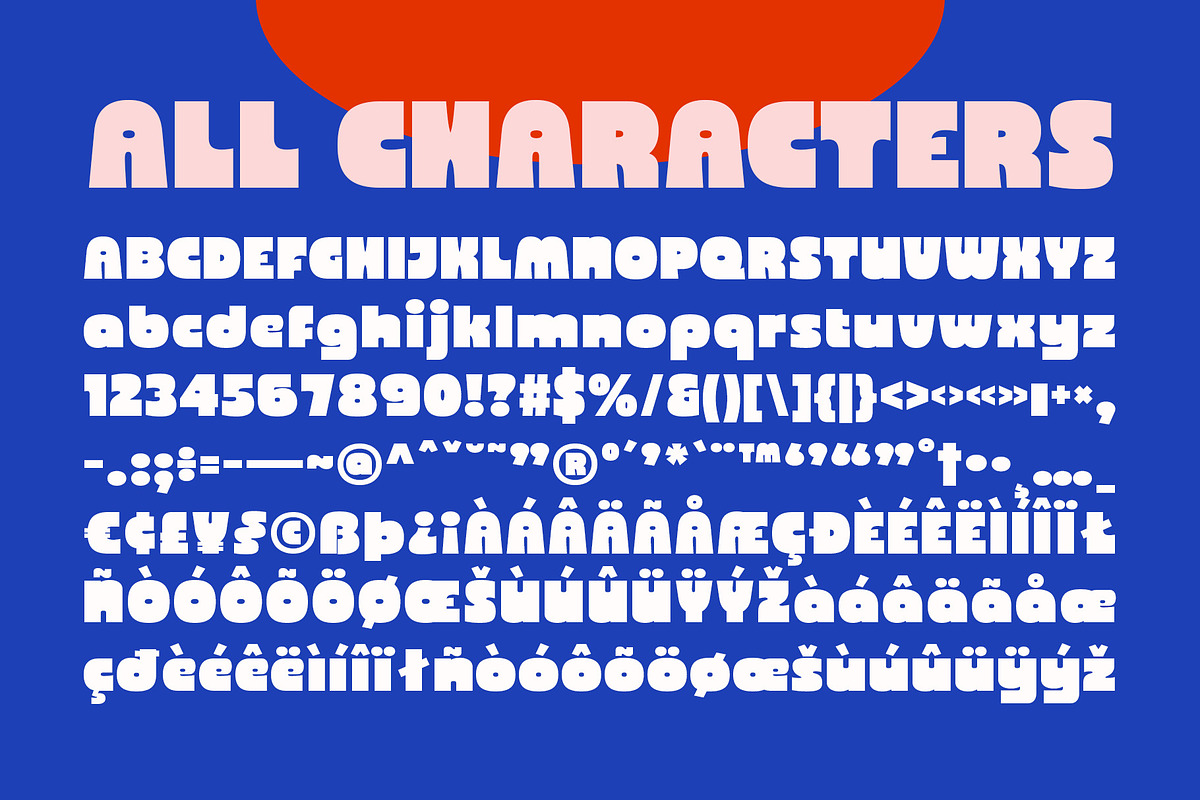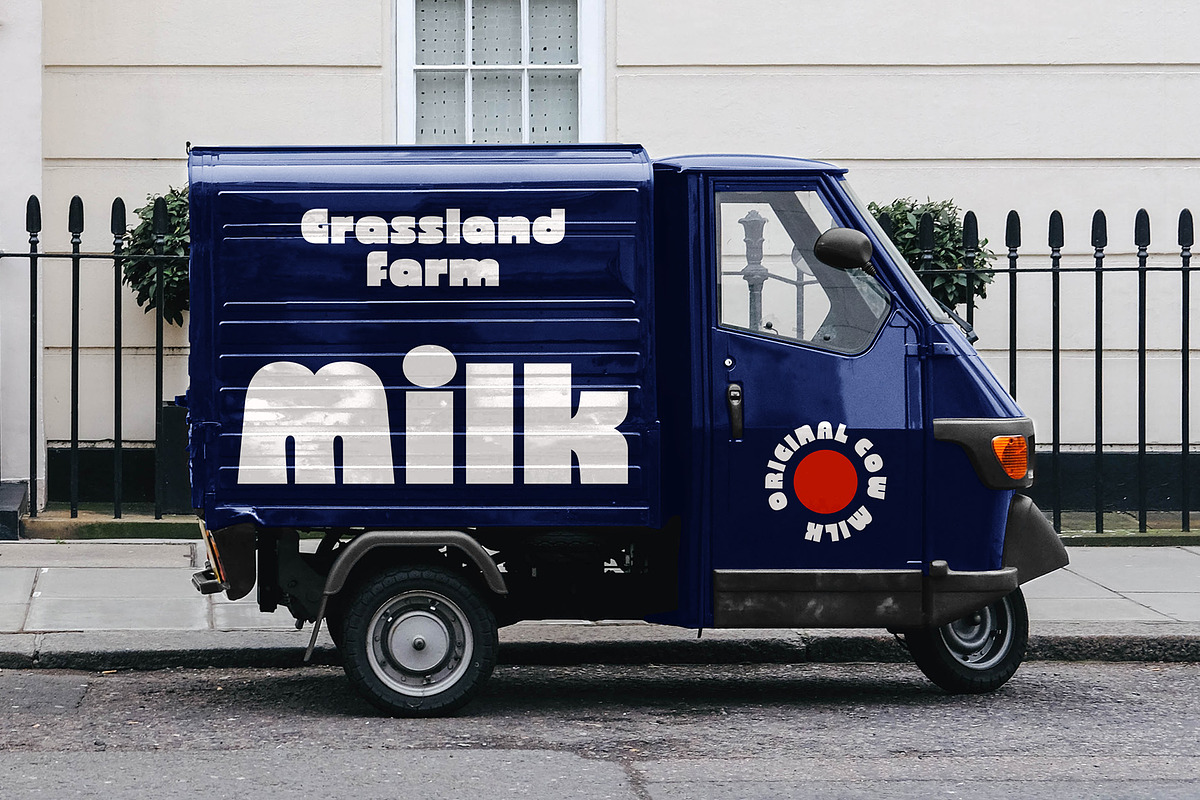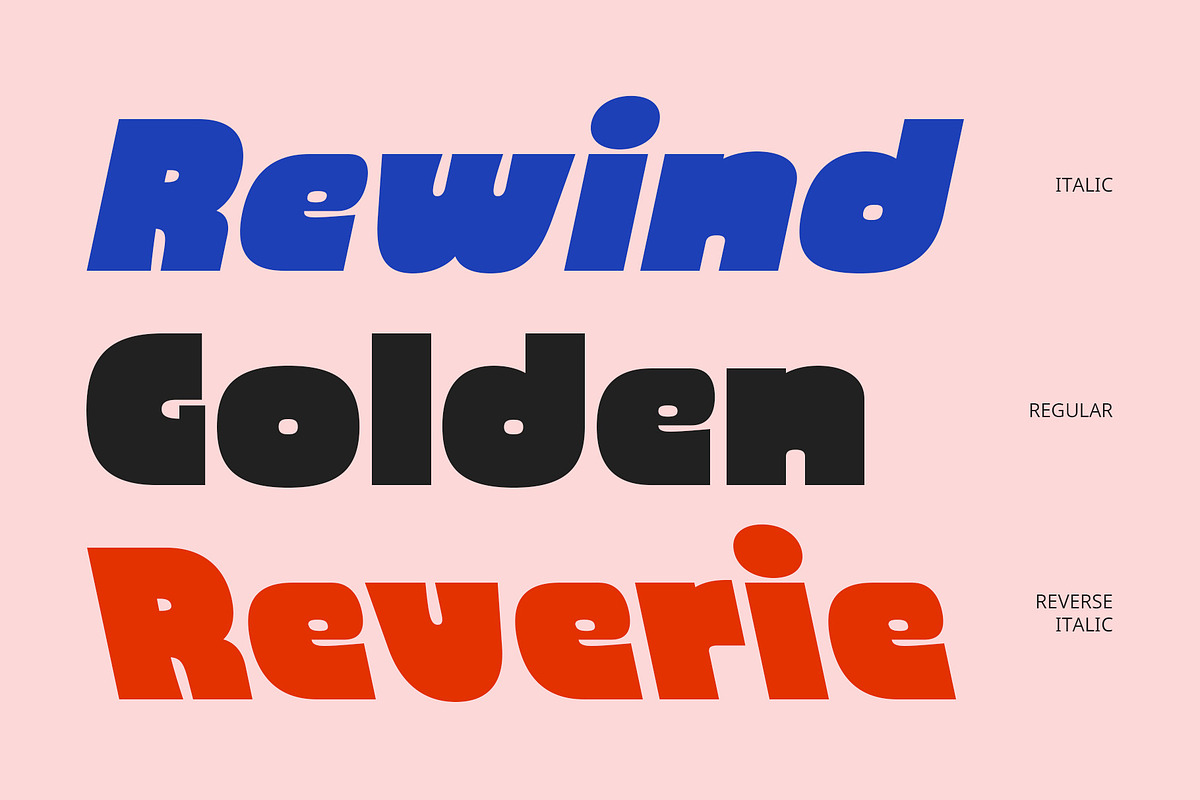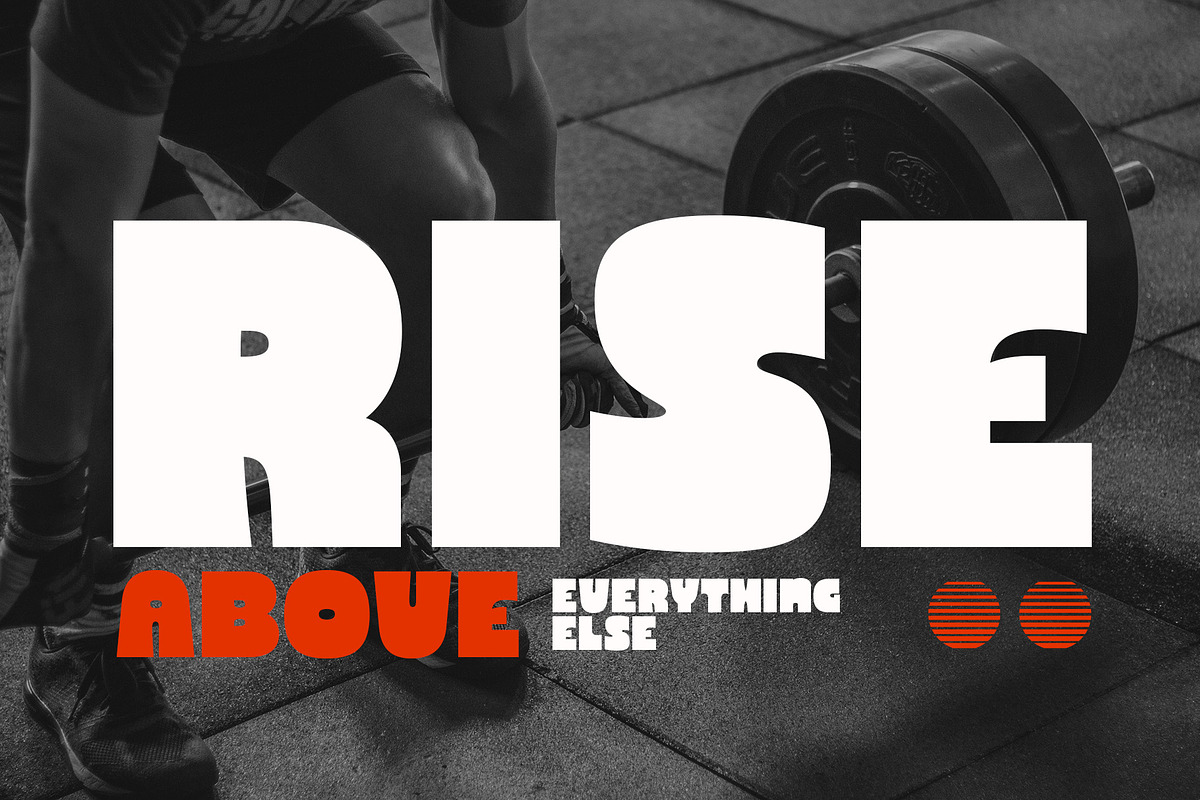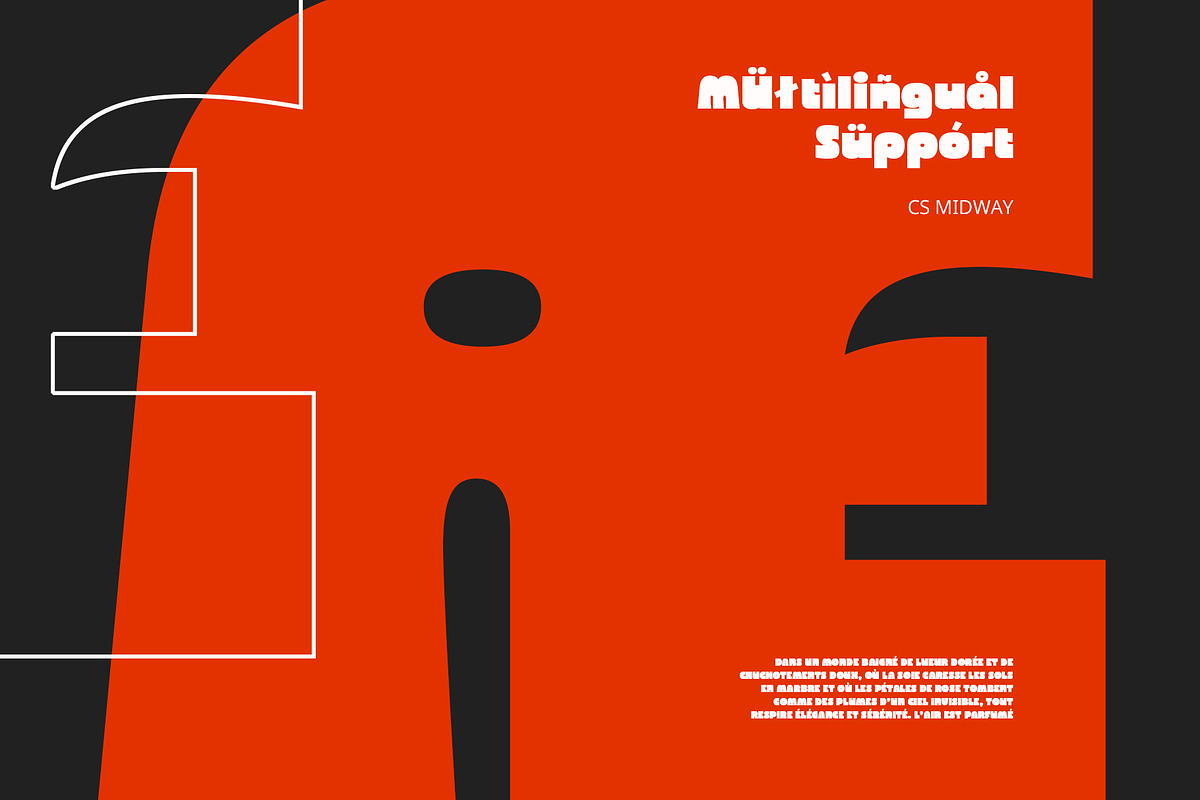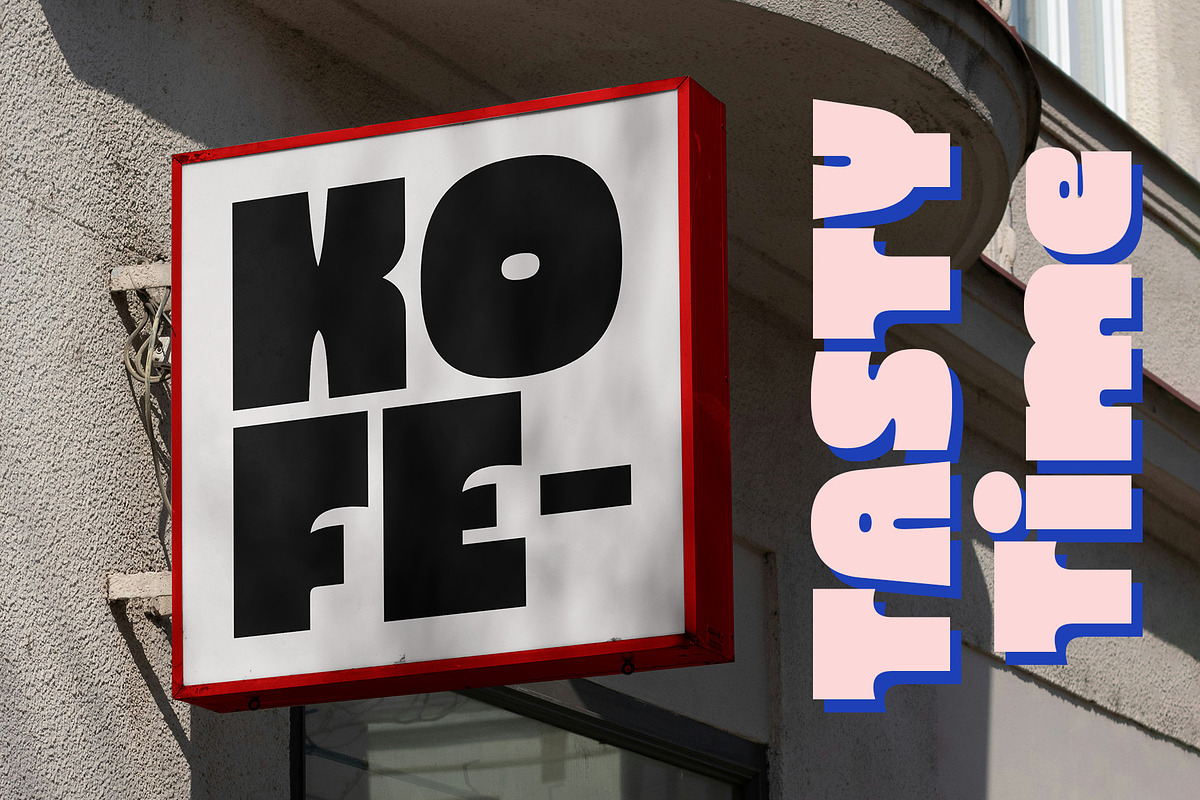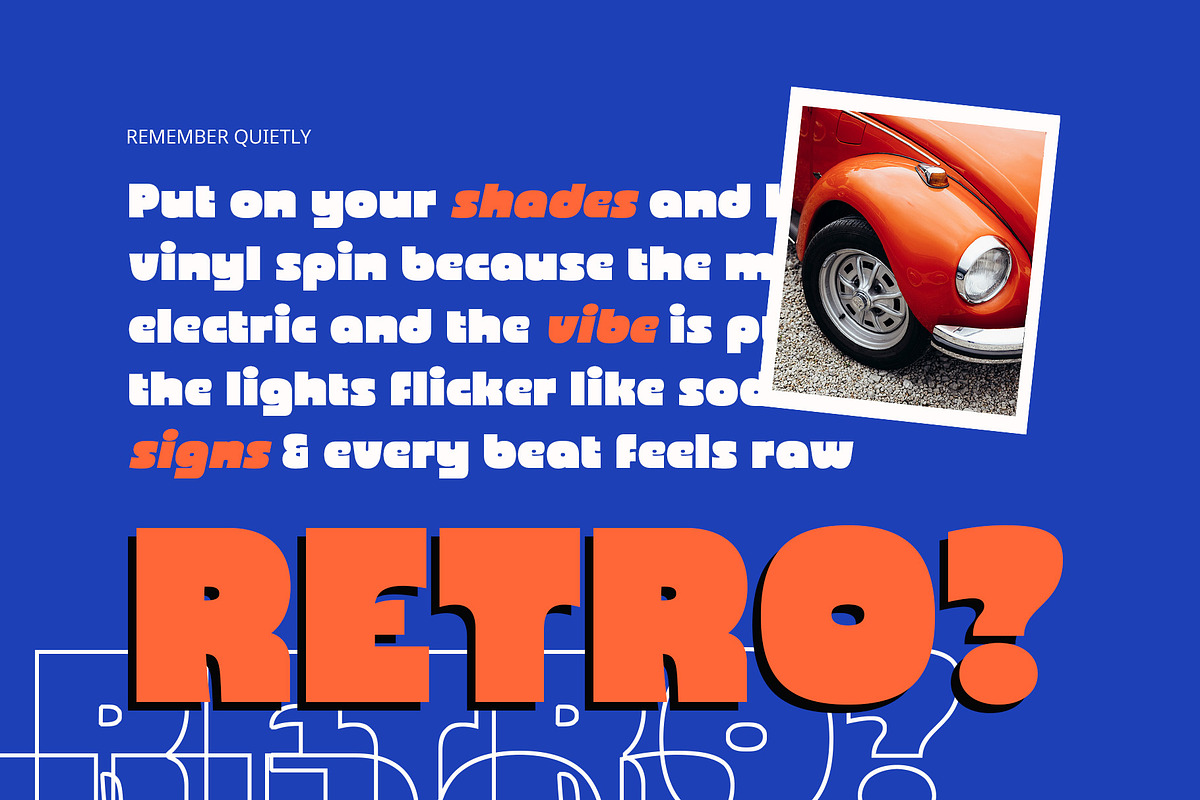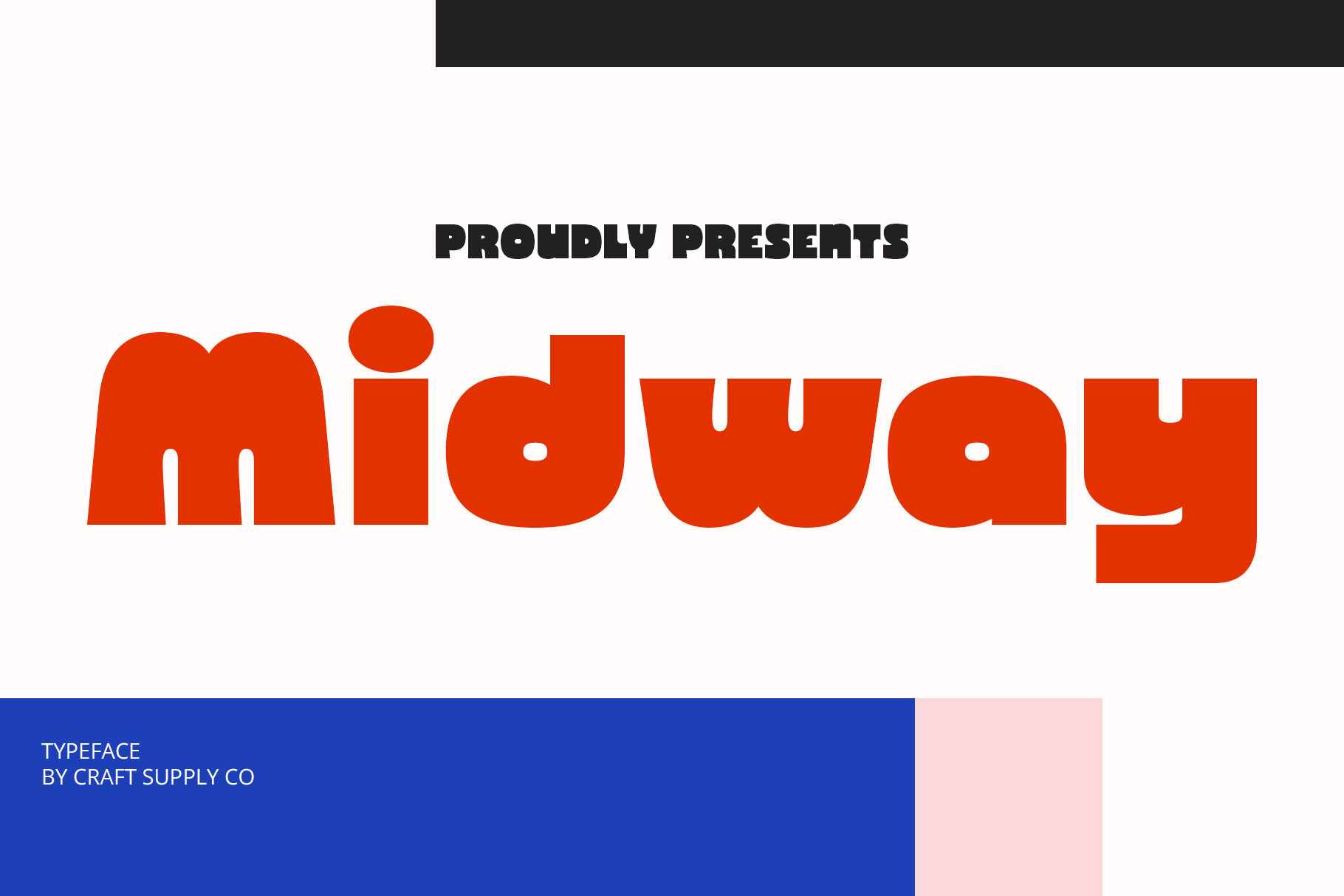
CS Midway – Bold Font
CS Midway – Bold Font: Fresh, Funky, and Full of Impact
Bold and Clean Design with Funky Energy CS Midway is a modern sans serif display font with a bold, clean design that instantly grabs attention. Its solid and structured letterforms are infused with a funky, energetic vibe, creating typography that radiates confidence, freshness, and creativity.
Fresh Style with Strong Character More than just bold, this font carries a unique personality. Its lively, playful edge makes it perfect for designs that want to stand out with strength while keeping a modern, approachable feel. Posters, logos, packaging, and branding projects benefit from its striking look and dynamic presence.
Perfect for Eye-Catching Designs From vibrant headlines to promotional materials and creative branding, CS Midway ensures your message never goes unnoticed. Its versatility blends strength with a playful character, making it ideal for projects that require an attention-grabbing yet stylish touch. With its clean lines, bold form, and funky flair, CS Midway is more than just a font—it’s a creative statement. It adds energy and style to any project, leaving a strong and lasting impression.
Versatile for Creative and Professional Use While playful in spirit, CS Midway also adapts well to professional contexts. It balances strength with creativity, making it a versatile choice for branding, social media visuals, or digital campaigns seeking a modern yet approachable look.
- CS Midway Regular
- CS Midway Italic
- CS Midway Reverse Italic